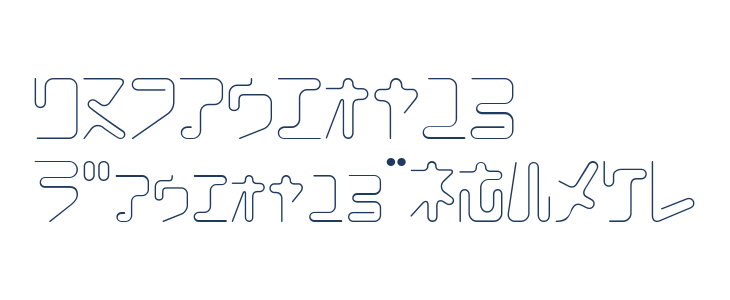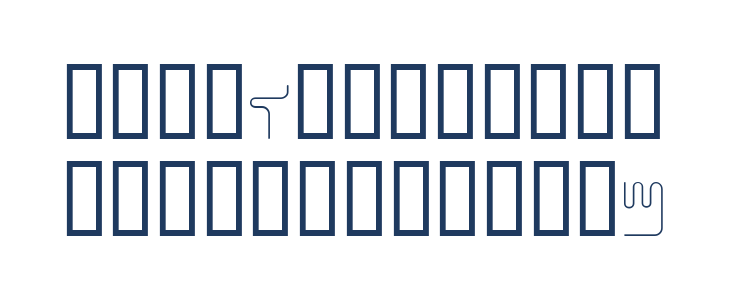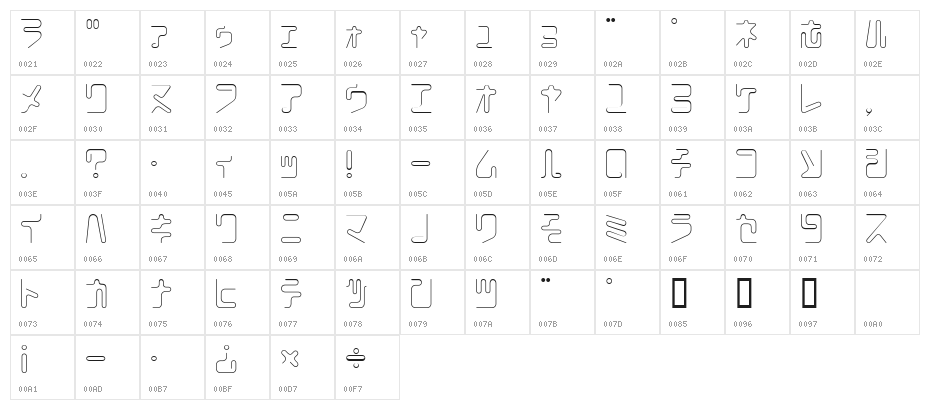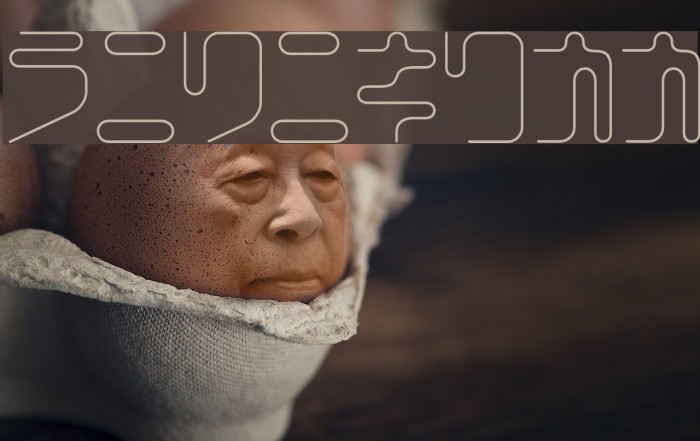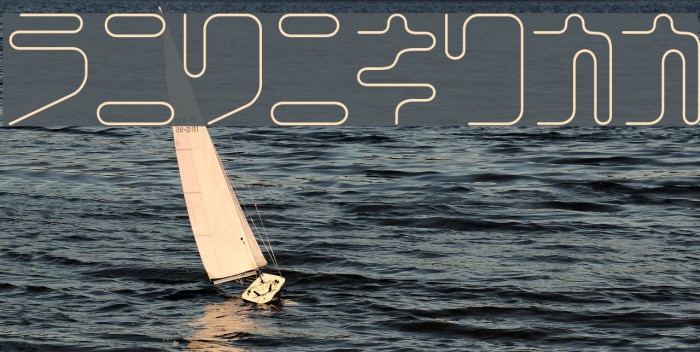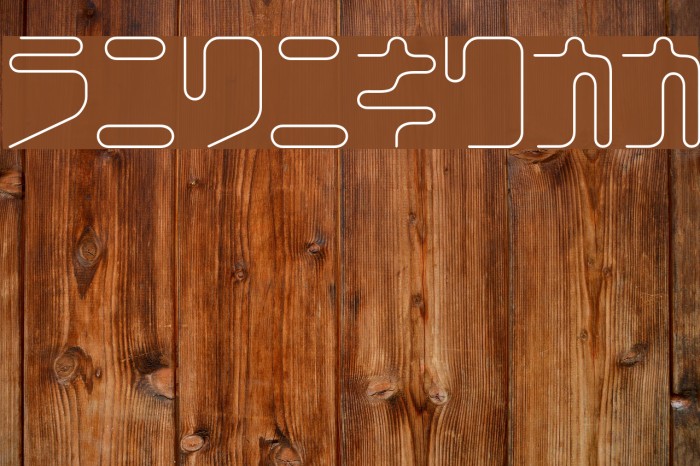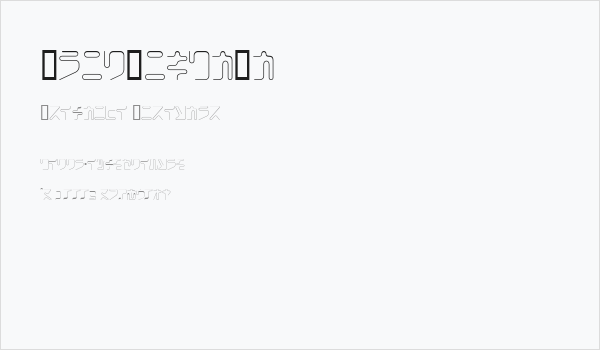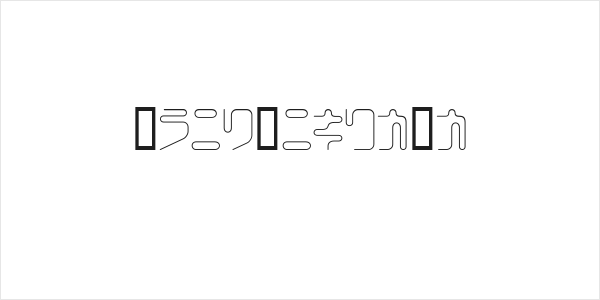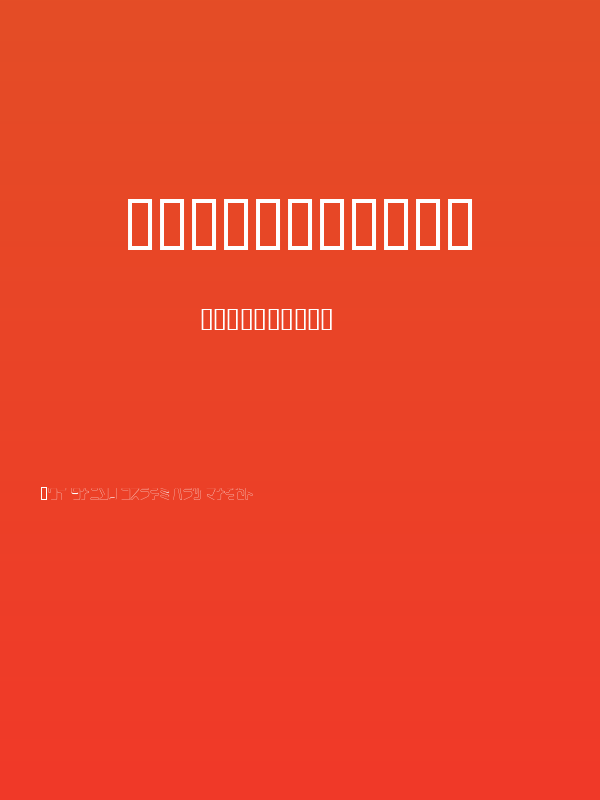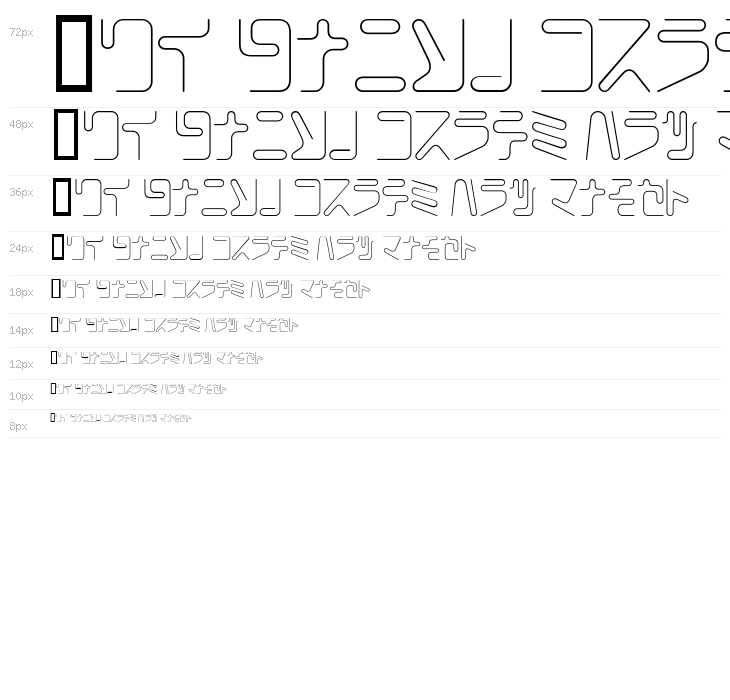
CoilLightKt Font
CoilLightKt Description
This font features a futuristic and geometric design, characterized by its clean lines and minimalistic style. Each character is crafted with precision, creating a sense of modernity and innovation. The font's structure is composed of straight and curved lines that form a cohesive and balanced appearance. Its unique style makes it stand out, offering a fresh take on traditional typography. The font's design is both functional and aesthetically pleasing, making it suitable for a variety of creative projects. Its distinctiveness lies in its ability to convey a sense of technology and forward-thinking, making it ideal for projects that aim to communicate a modern and cutting-edge message.
| Proposed Projects | Ideal for technology branding, sci-fi themed designs, modern art projects, and innovative product packaging. |